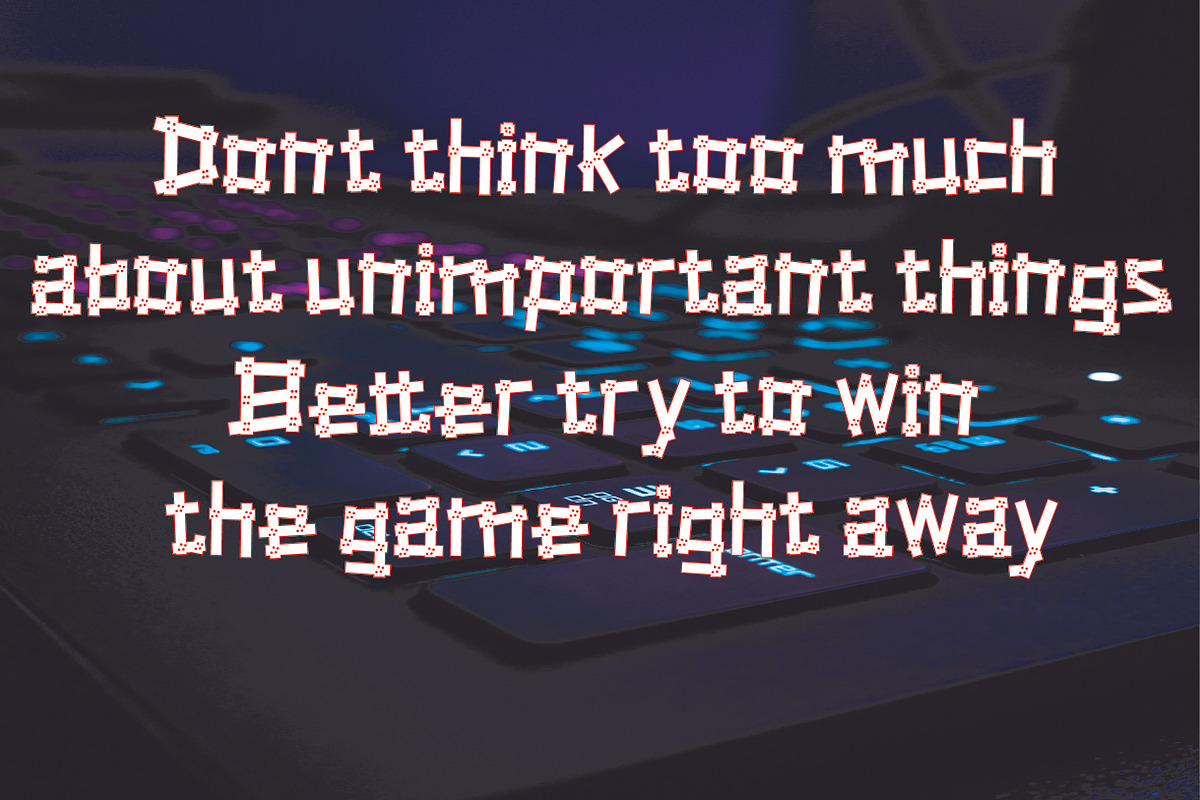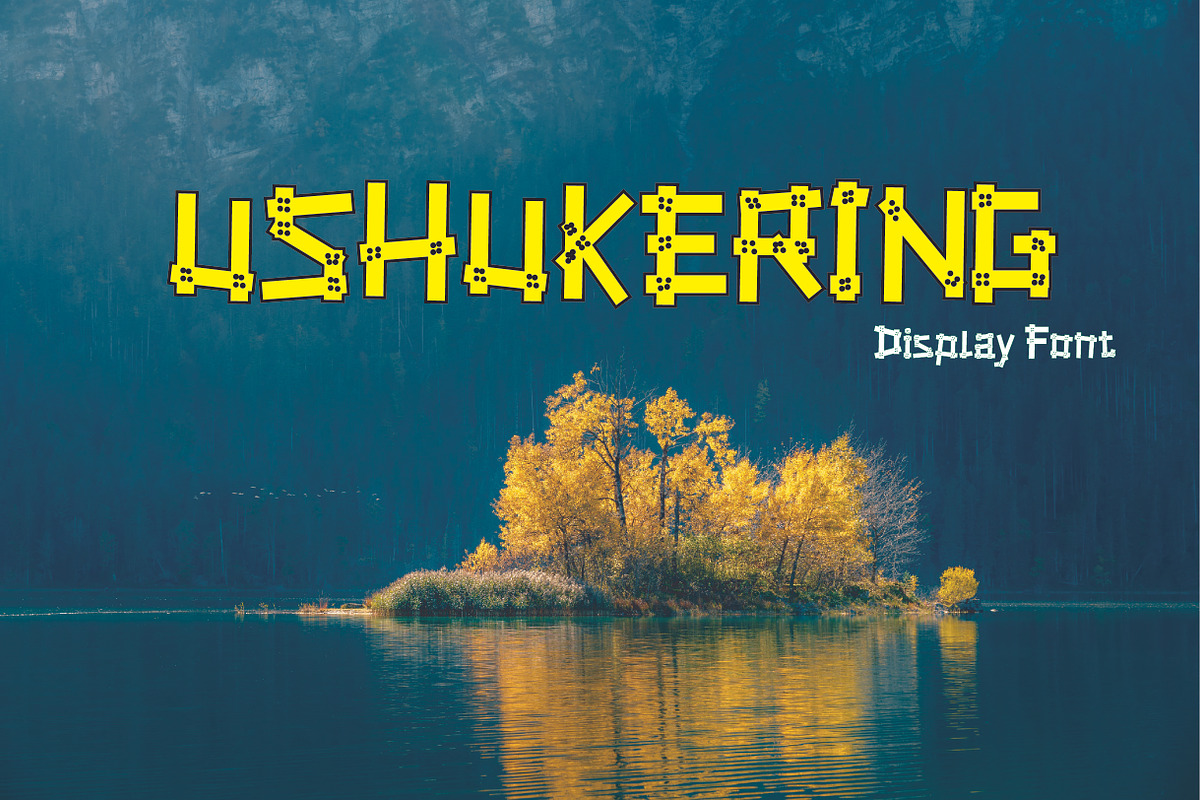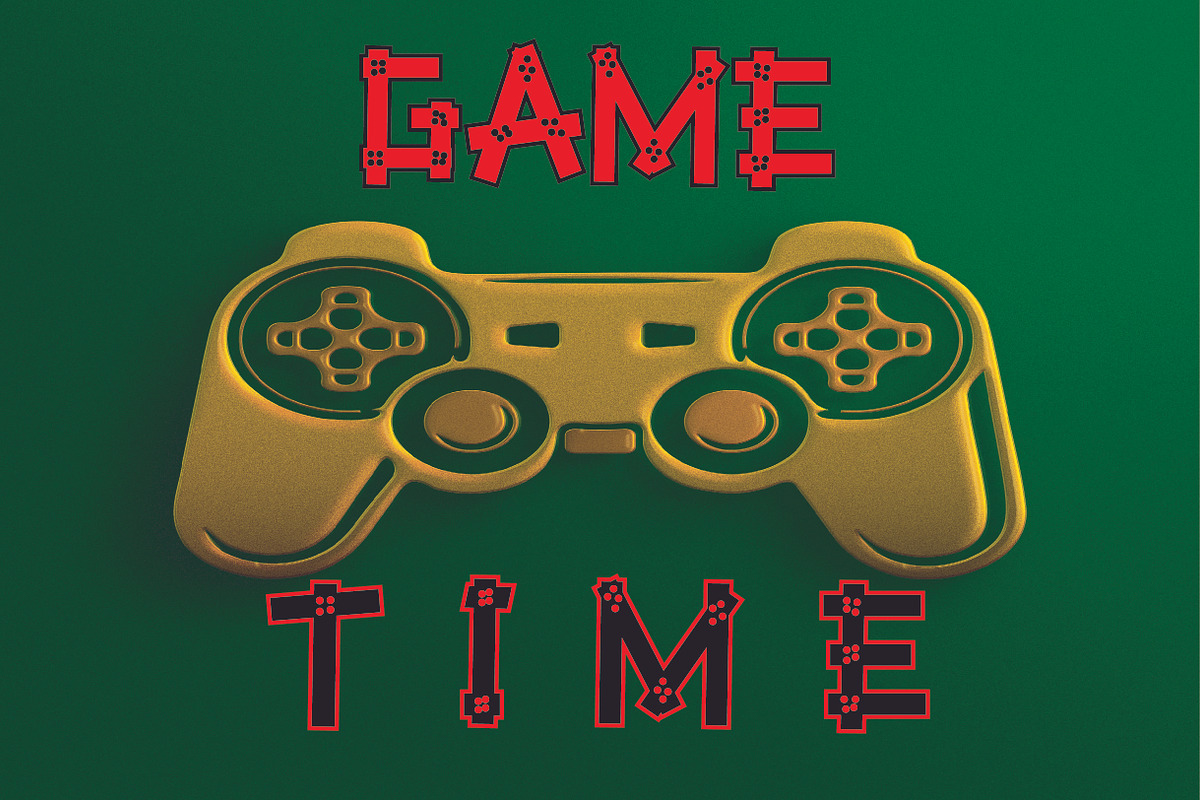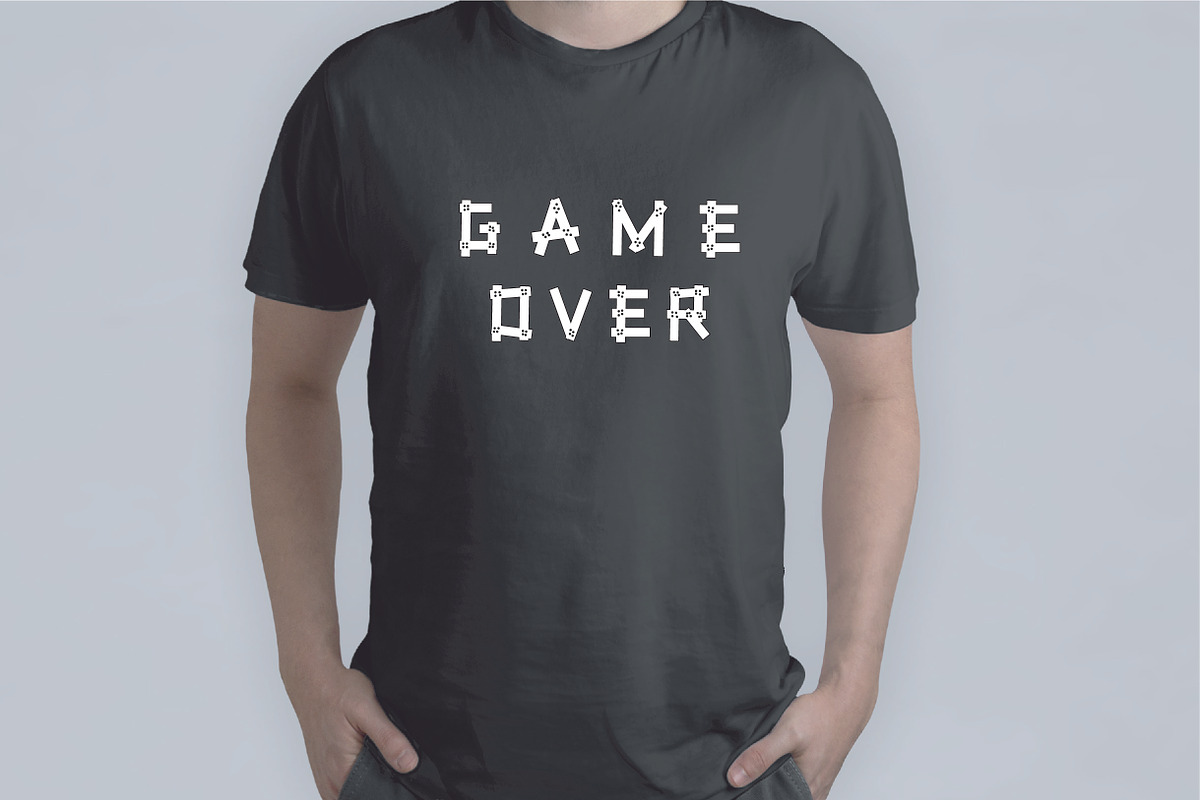
Ushukering
USHUKERING : Modern, Display Font to make every word you make more eye-catching. Great for social media post designs, branding, merchandise, posters, comic, display, etc
USHUKERING is great for: Wedding invitations, fashion magazines, logos, signatures, and suitable for watermark photography.